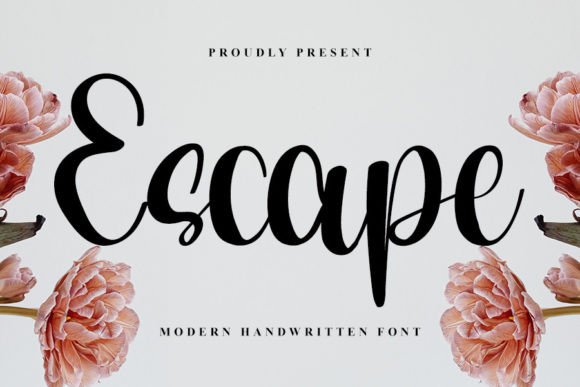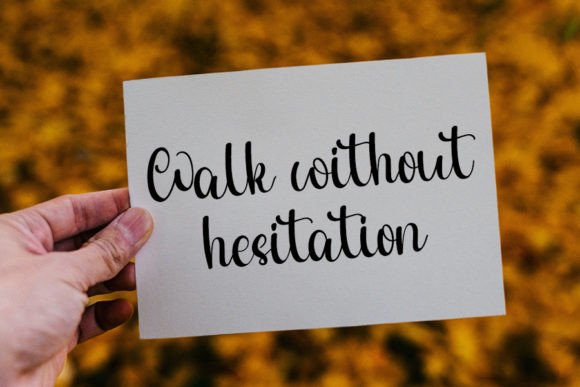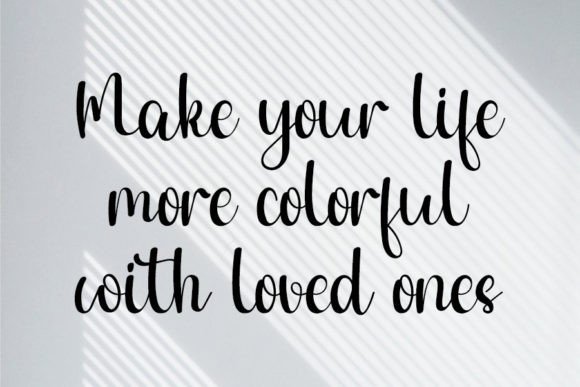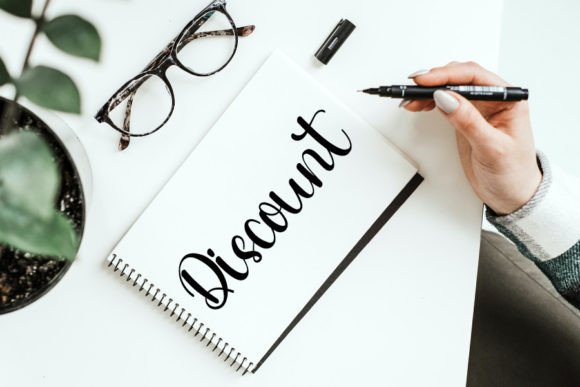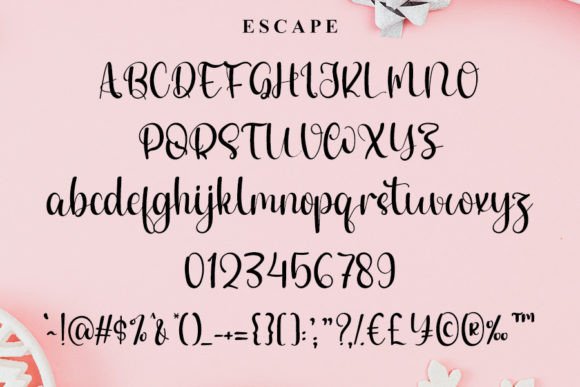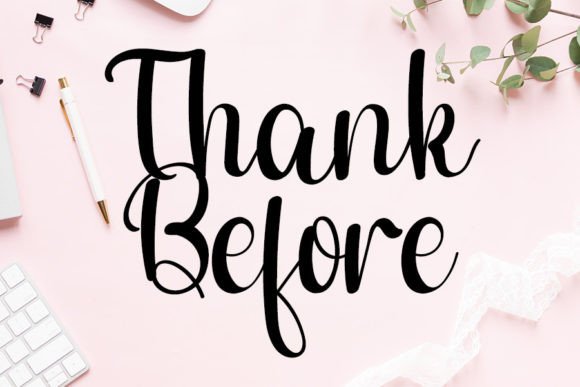
Escape Font
About Escape Font
Escape is an enchanting handwritten font that effortlessly marries a clean appearance with an elegant touch, making it an ideal choice for your favorite projects. With its incredibly distinct and timeless style, this font invites you to immerse yourself in its beauty and utilize it to craft truly spectacular designs.
The neatness of Escape is immediately evident, offering a polished and well-organized aesthetic that ensures readability and precision in your designs. Each character is meticulously crafted, contributing to the font’s overall sophistication and refined look.
What sets Escape apart is its handwritten elegance. The graceful strokes of each letter add a personal and artistic touch to your projects. This font not only conveys information but also elevates your design, infusing it with a sense of grace and charm.
Whether you’re working on branding, invitations, stationery, or any creative endeavor, Escape seamlessly adapts to your vision. Its timeless style ensures versatility, allowing you to create designs that endure changing trends, making it a reliable and enduring choice.
Escape is more than just a font; it’s a design asset that empowers your creativity. Fall in love with its distinct and beautiful qualities as you explore its potential in your projects. Let it be the signature element that enhances your designs, making them not just visually striking but also memorable and captivating.
In conclusion, let Escape be the perfect companion for your creative endeavors. Embrace its neat and beautiful characteristics, appreciate its elegant touch, and use it to craft designs that are not only spectacular but also possess a timeless allure.